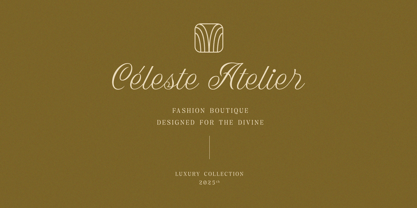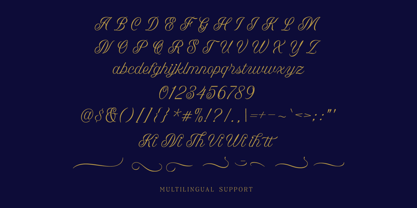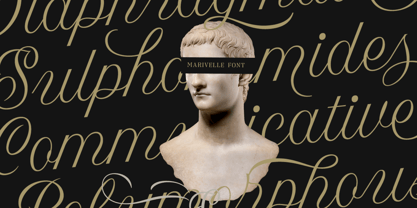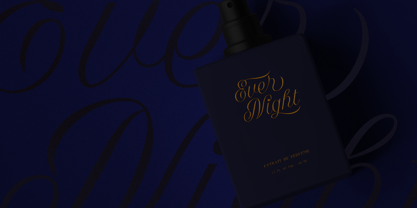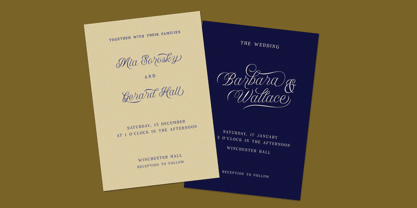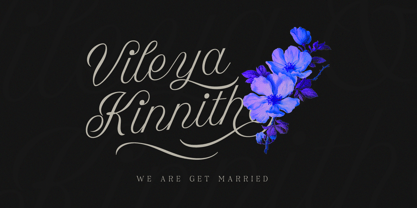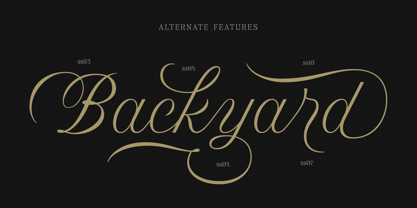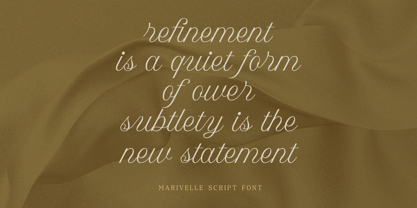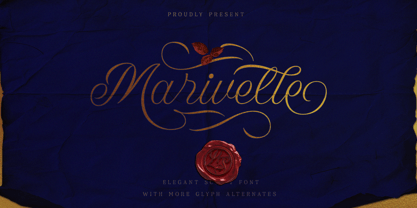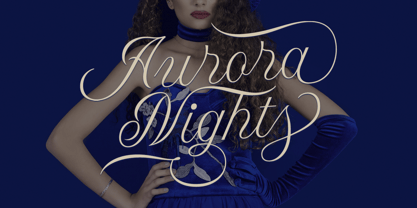
Marivelle
Marivelle is an elegant script font designed with graceful curves and refined swashes that bring a timeless sense of luxury. Its flowing strokes and stylish alternates make it perfect for wedding invitations, branding, stationery, packaging, and high-end logos.
Features :
• Uppercase & lowercase
• Numbers and punctuation
• Alternates/Ligatures
• Multilingual Support